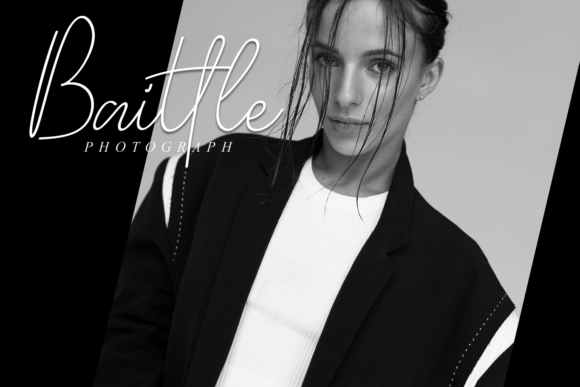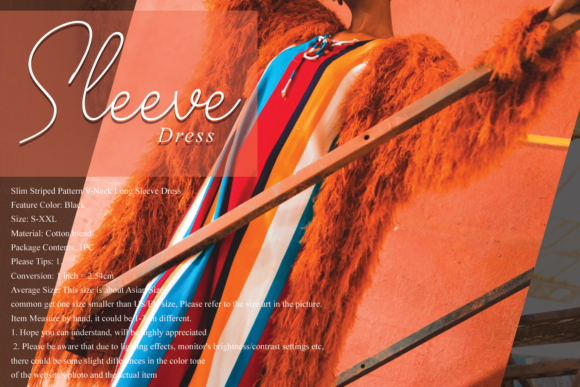
Beauty Friday Font
db-ku.com - Script & Handwritten -- Beauty Friday is a thin lettered handwritten font, masterfully designed to become a true favorite. It maintains its classy calligraphic influences while feeling contemporary and fresh.